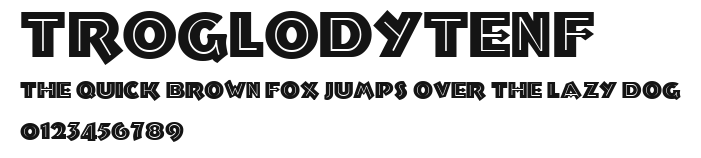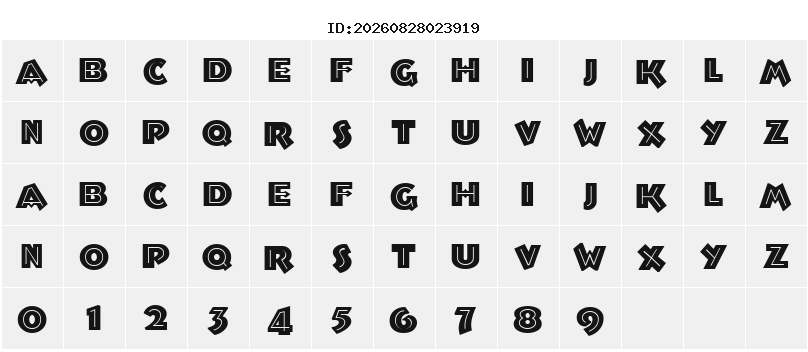
• Font Name: TroglodyteNF
• Version: Version 1.00 6/1/2002
About TroglodyteNF.ttf
TroglodyteNF.ttf is a modern, elegant sans-serif font designed for ultimate readability and visual harmony. Perfect for branding, headlines, web design, and print materials.